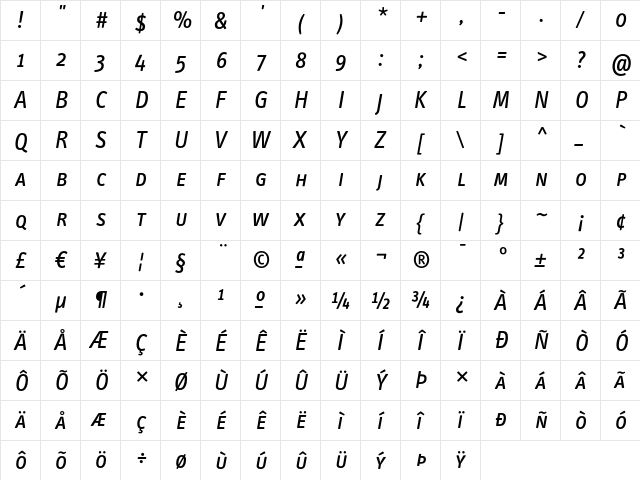
InfoTextBook CapsIta
Design Context for InfoTextBook Typeface
InfoTextBook is a composed and adaptable typeface that performs quietly and consistently across a wide range of design contexts.